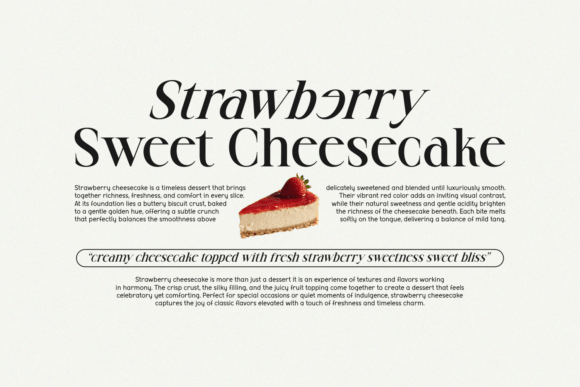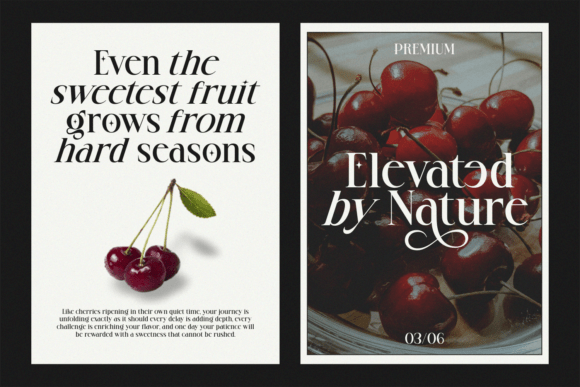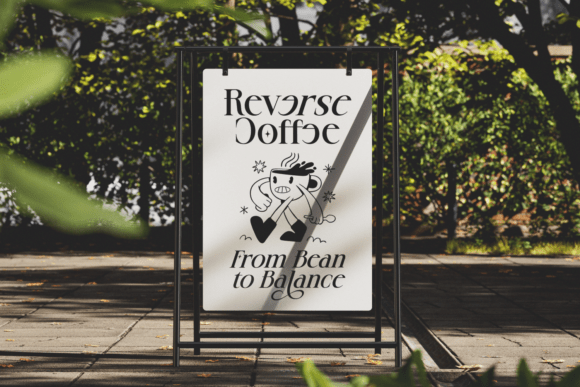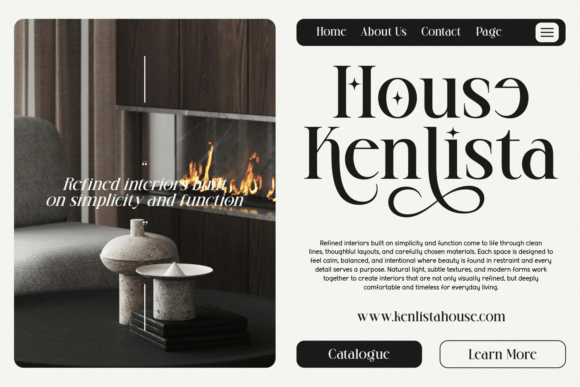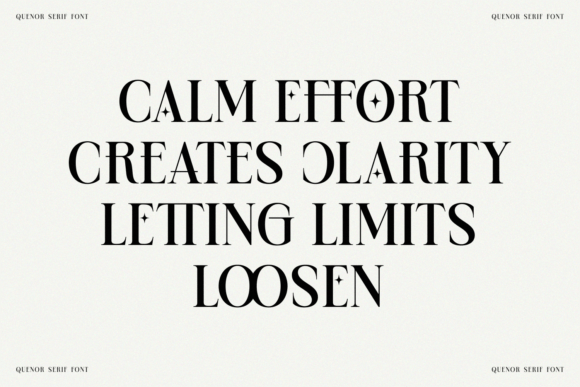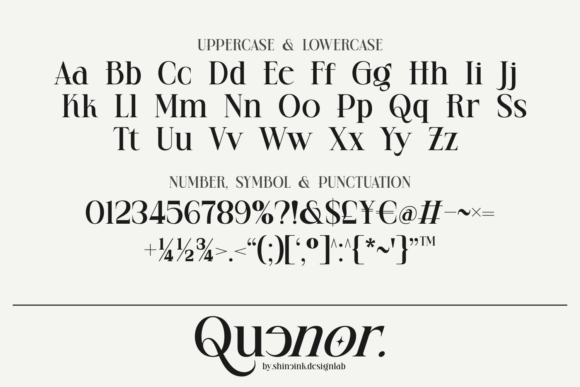
Introduction to Quenor Font
Have you ever stared at a blank page, waiting for the perfect font to spark your creative project? The blank page can be intimidating, but what if the right font could be the missing piece that brings your vision to life? For designers seeking a refined and sophisticated serif font, the answer lies in the elegant Quenor Font. This luxury font duo is a masterclass in blending classic style with modern elegance, making it an invaluable design resource for any creative endeavor.
Quenor Font is more than just a font – it’s a key to unlocking high-quality typography that elevates your work. With its smooth italic touch and sharp serifs, this font duo delivers a sophisticated editorial feel that’s perfect for fashion branding, magazines, luxury logos, and premium packaging. Whether you’re working on a website, creating elegant typography layouts, or searching for a clean yet expressive serif font, Quenor Font is the perfect choice.
Key Features of Quenor Font
- High-quality design resource with a unique and creative touch, perfect for various creative projects.
- Size: 12,000+ glyphs, providing an extensive character set for complex and detailed designs.
Honest Review: Quenor Font
As a designer, I’m always on the lookout for high-quality fonts to enhance my creative projects. Recently, I had the chance to try out the Quenor Font, and I must say it’s been a pleasant experience.
- ✨ Beautifully designed characters with smooth curves and clean lines, making it perfect for headings and titles.
- ✨ Highly versatile, suitable for various design projects, from modern branding to traditional publishing.
One of the standout features of the Quenor Font is its ability to work seamlessly with a transparent background, allowing designers to achieve a stunning visual effect.
Tips for Getting the Most Out of Quenor Font
To get the most out of Quenor Font, use it in combination with a transparent background to create a clean and modern design. Experiment with different font sizes and styles to add visual interest to your project.
Quenor Font is a versatile font that can be used in a variety of creative projects, including:
- Infographics and data visualizations
- Brochures and marketing materials